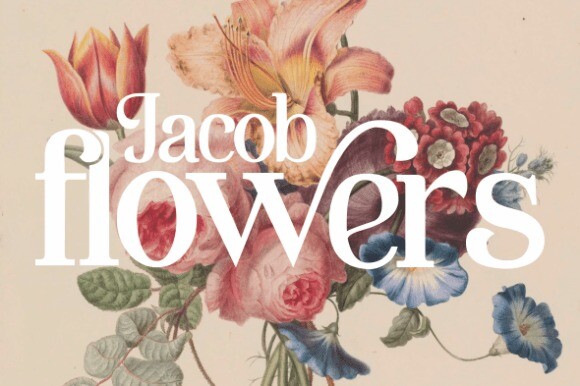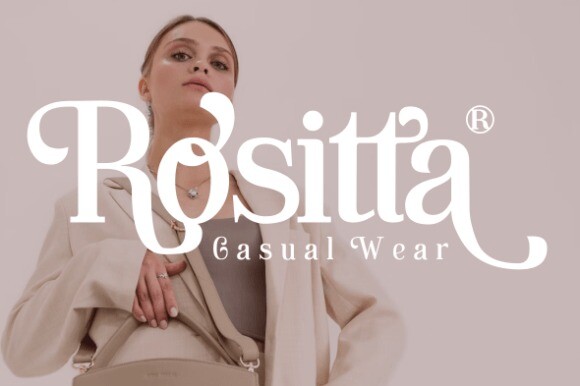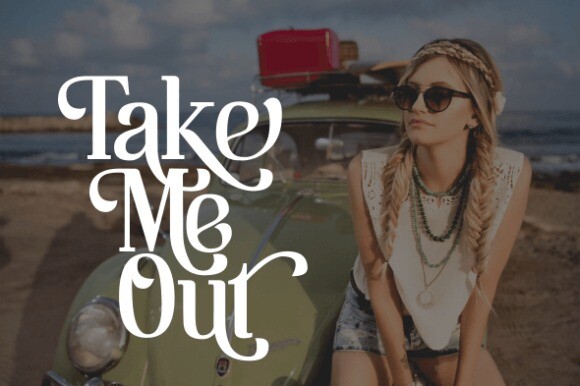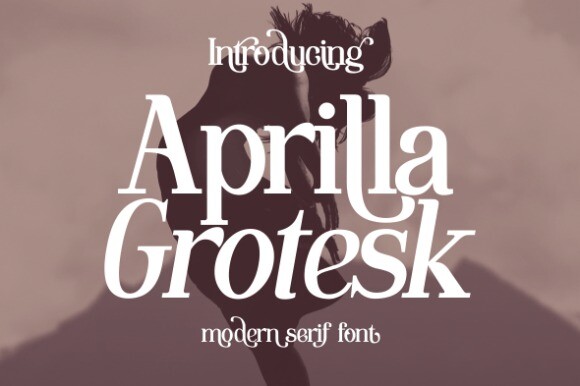
Aprilla Grotesk Font
Aprilla Grotesk Font is a elegant and classy serif typeface packed with beautiful characters, helping you create logos, quotes, posts, social media posts, branding projects, magazine covers, book writing, and more. This font is PUA encoded which means you can access all glyphs and swashes with ease!